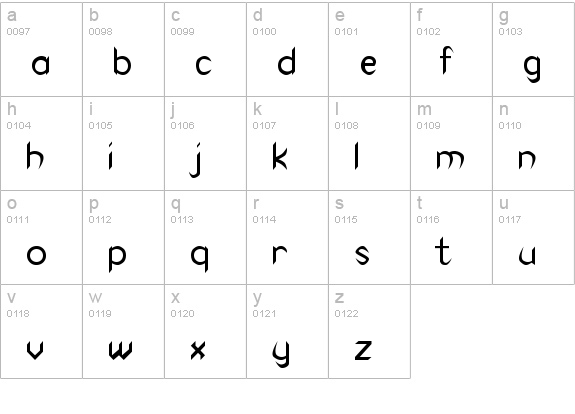
Canaith Font Details
Canaith font is a stunning and elegant typeface that exudes sophistication and style. With its unique blend of modernity and classic charm, Canaith font is perfect for a wide range of design projects, from branding to editorial design. The sleek lines and smooth curves of this font make it ideal for creating eye-catching headlines, logos, and print materials. What sets Canaith font apart is not just its beauty, but also its versatility. Whether you're working on a sleek and minimalist design or a more elaborate and ornate project, Canaith font is sure to elevate your work to the next level. Its clean and readable design ensures that your message comes across clearly and effectively. The best part? Canaith font is completely free to download at FontsMarket.com. This means that you can access this exquisite typeface without any cost, making it a valuable addition to your font collection. Don't miss out on the opportunity to enhance your designs with the timeless beauty of Canaith font - download it today and let your creativity soar!